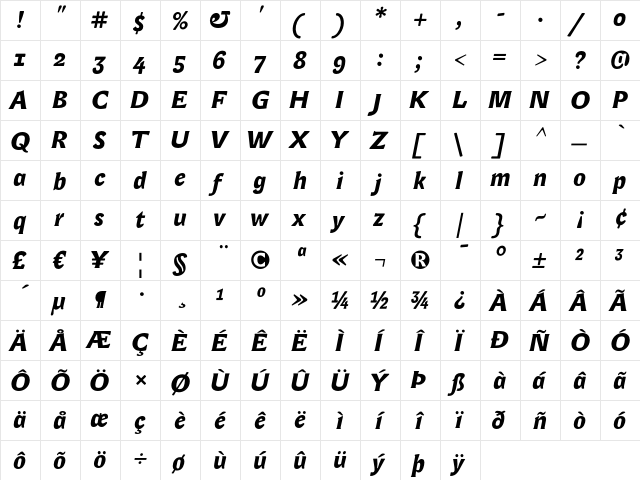
LexiconGothic BoldItalic
Design Context for LexiconGothic Typeface
LexiconGothic takes a clean, functional approach — its unadorned letterforms prioritise legibility and work reliably across screen and print environments. Its italic angle brings a sense of urgency and motion to the letterforms. The heavy weight commands attention and anchors typographic hierarchies.
Well-suited to navigation labels, product packaging, and anywhere legibility at scale is essential.
Font Pairing: Use LexiconGothic for headlines alongside a lighter-weight sans or serif for body copy to establish clear visual hierarchy.
Pro Tip: Use LexiconGothic for UI labels, navigation, and short-form body copy where clean legibility is the priority.